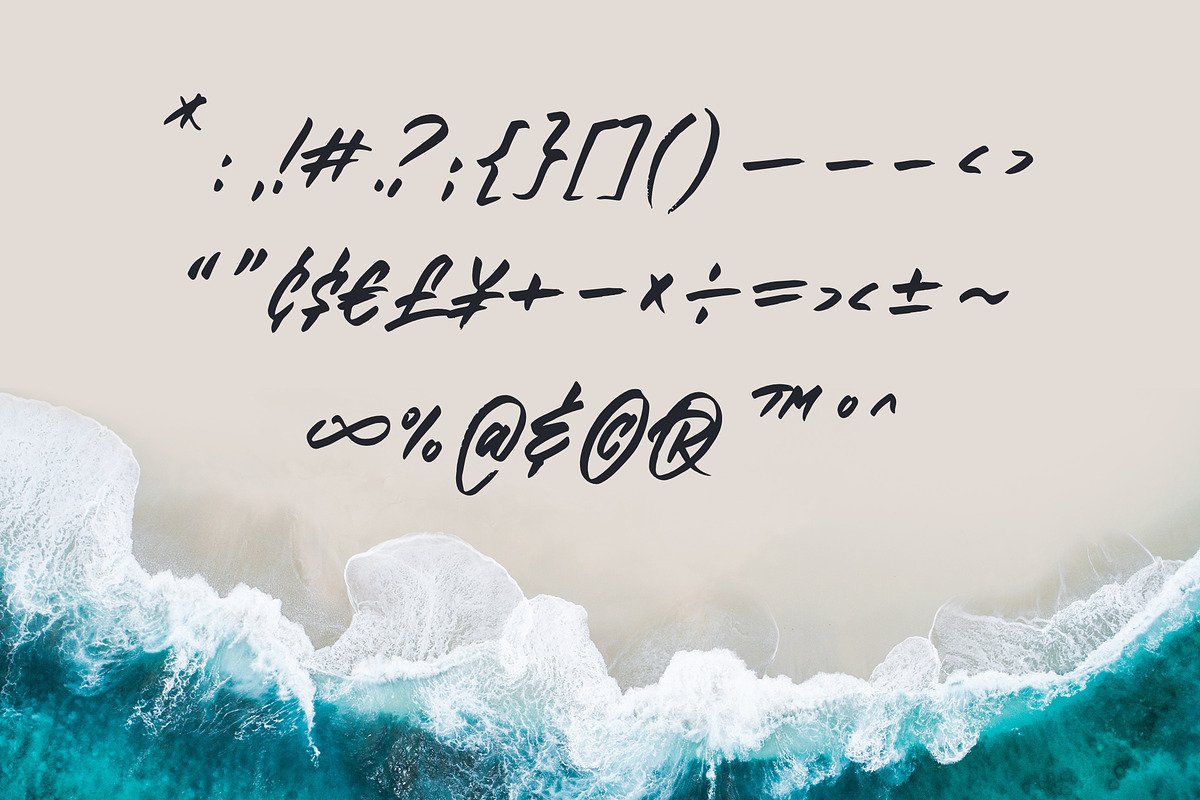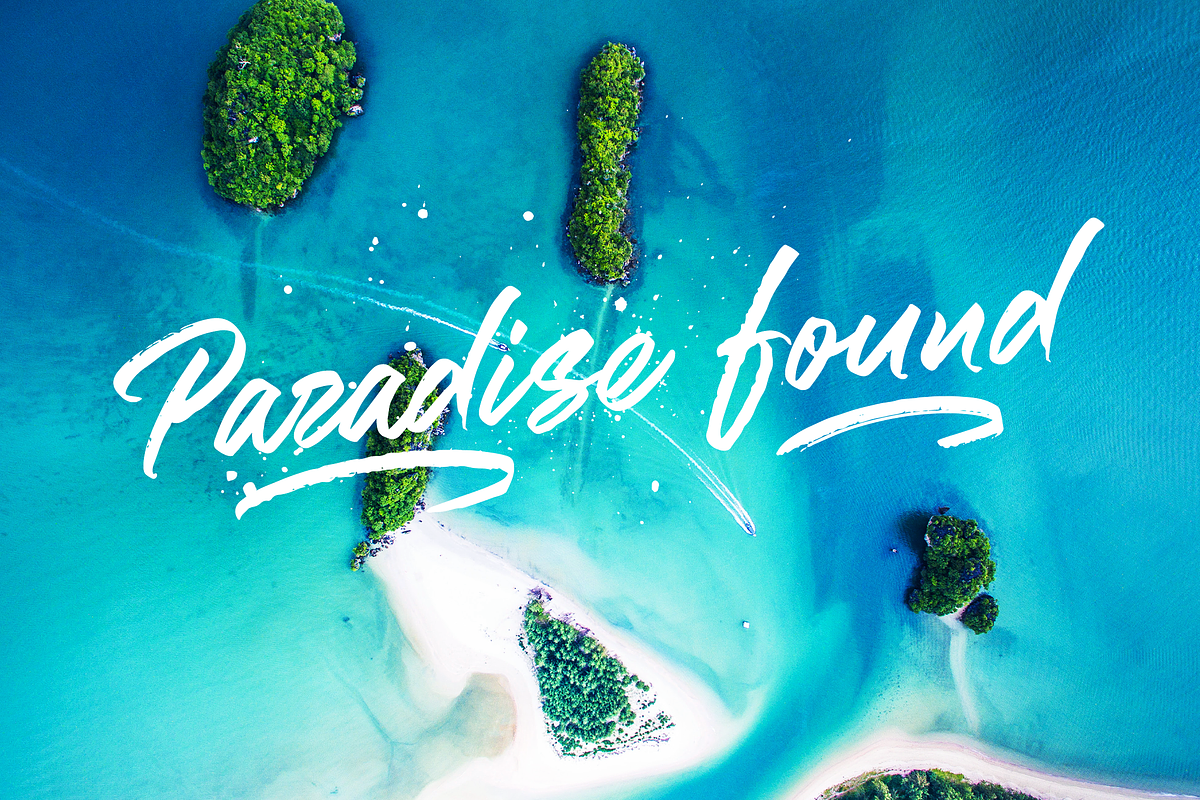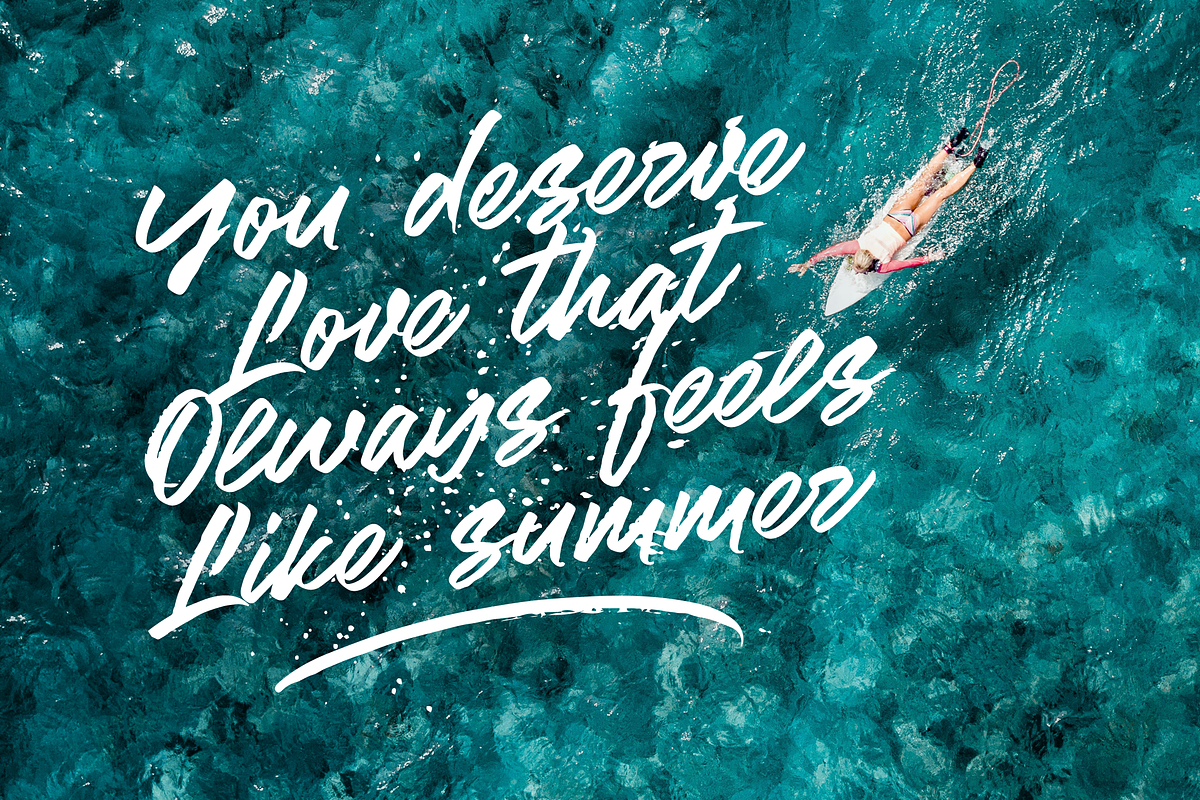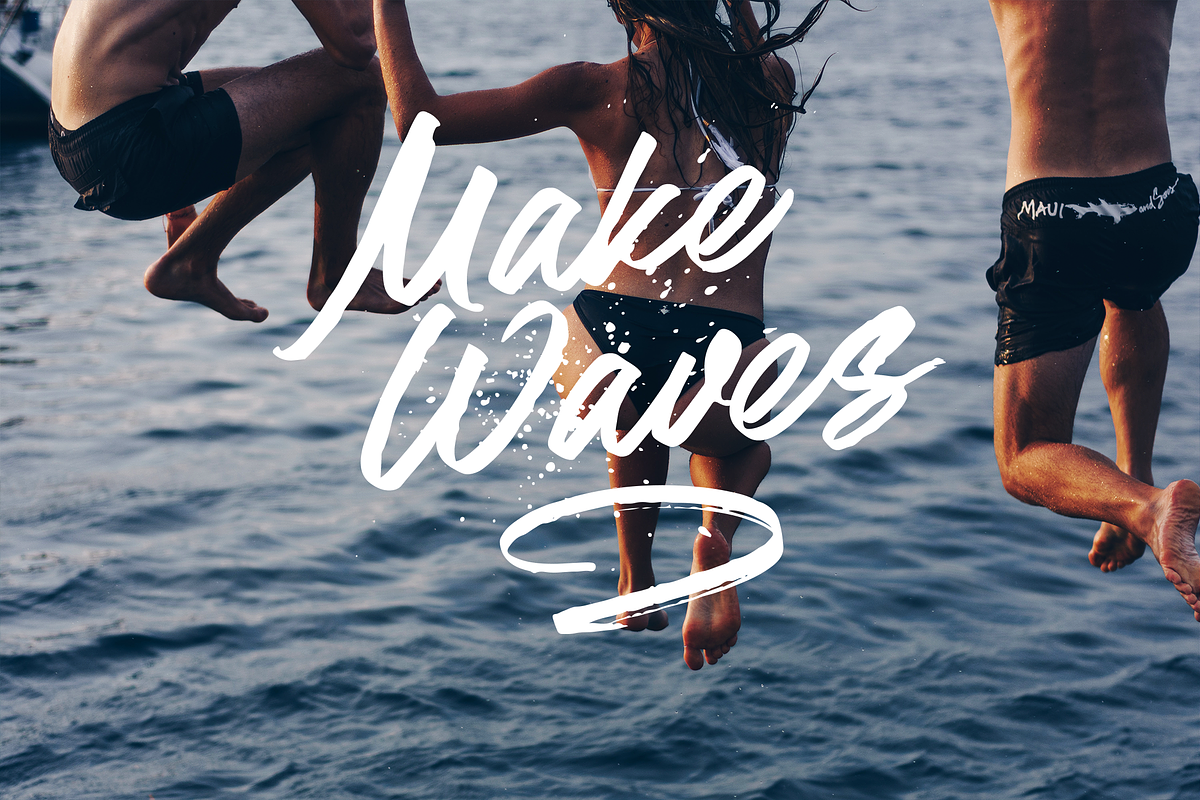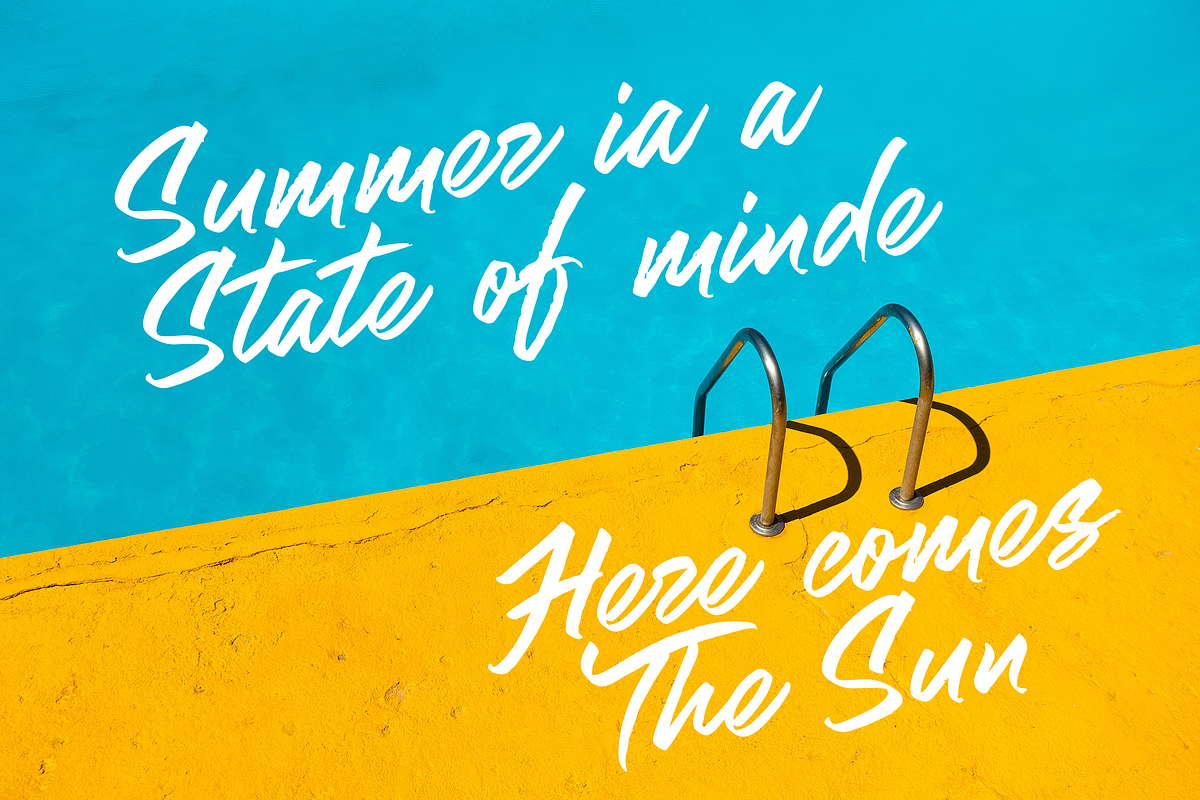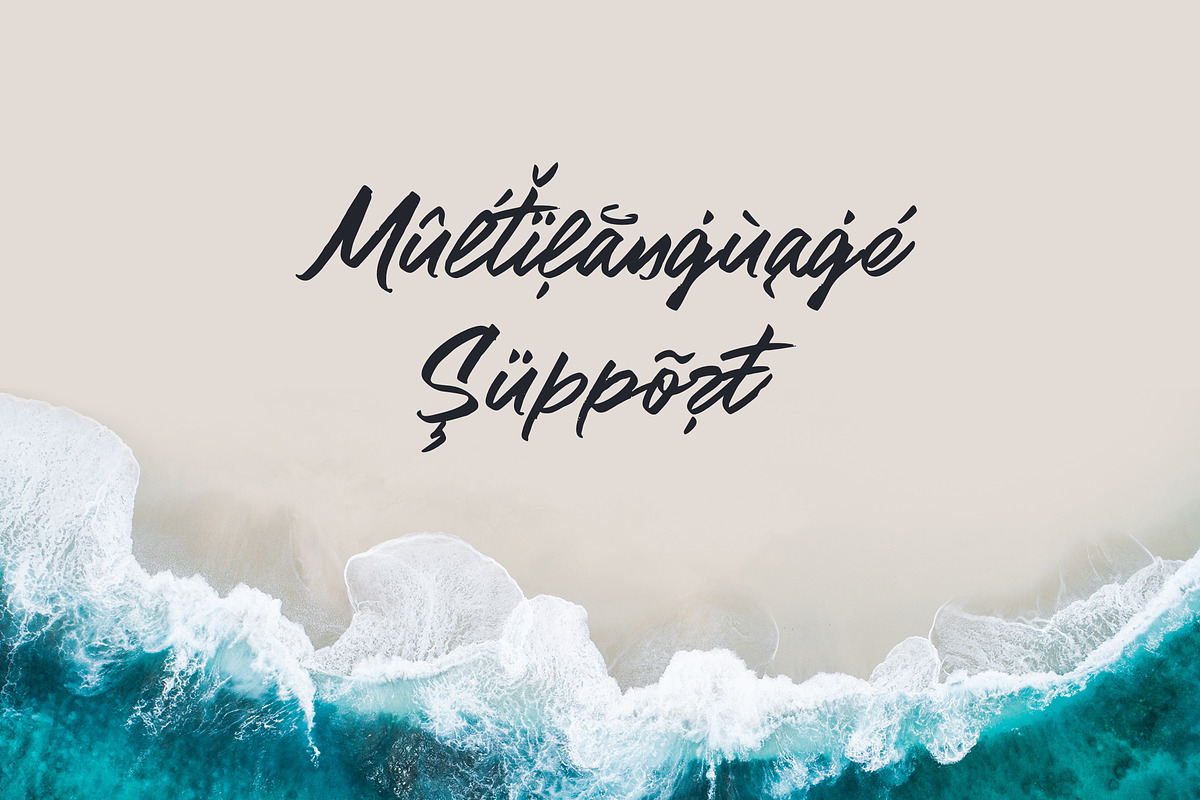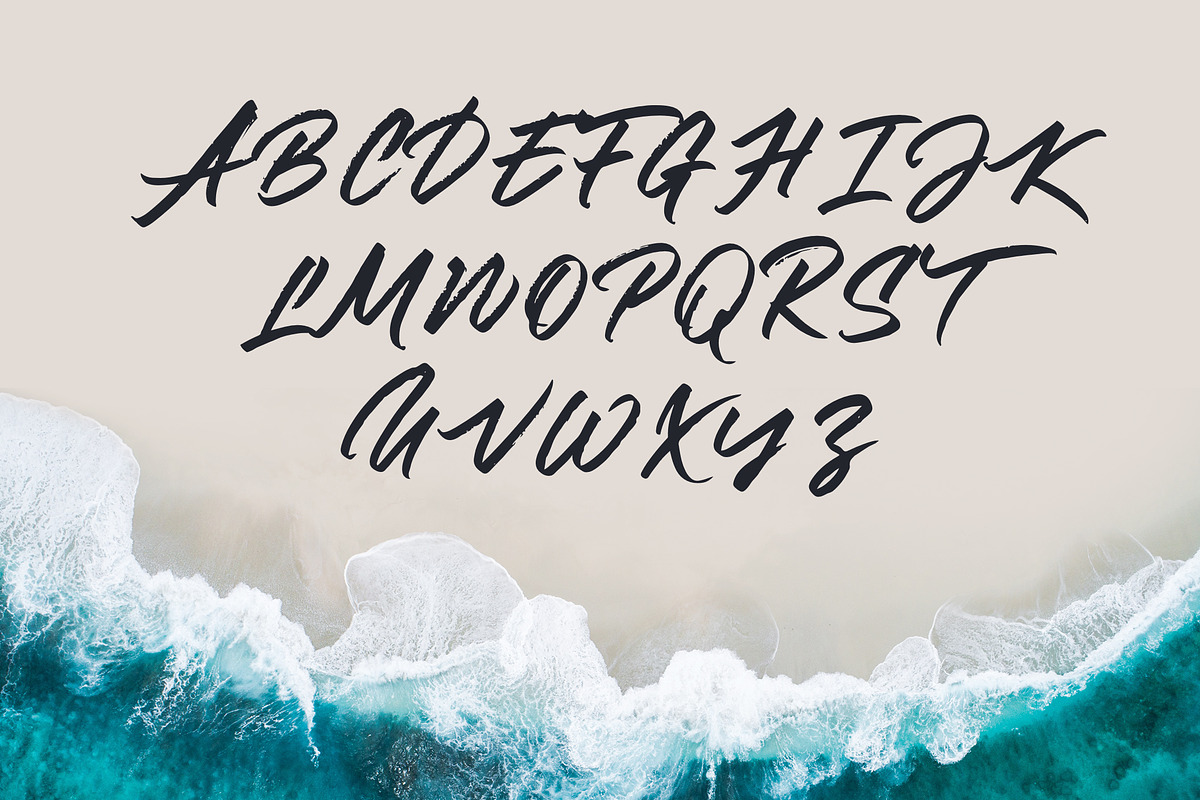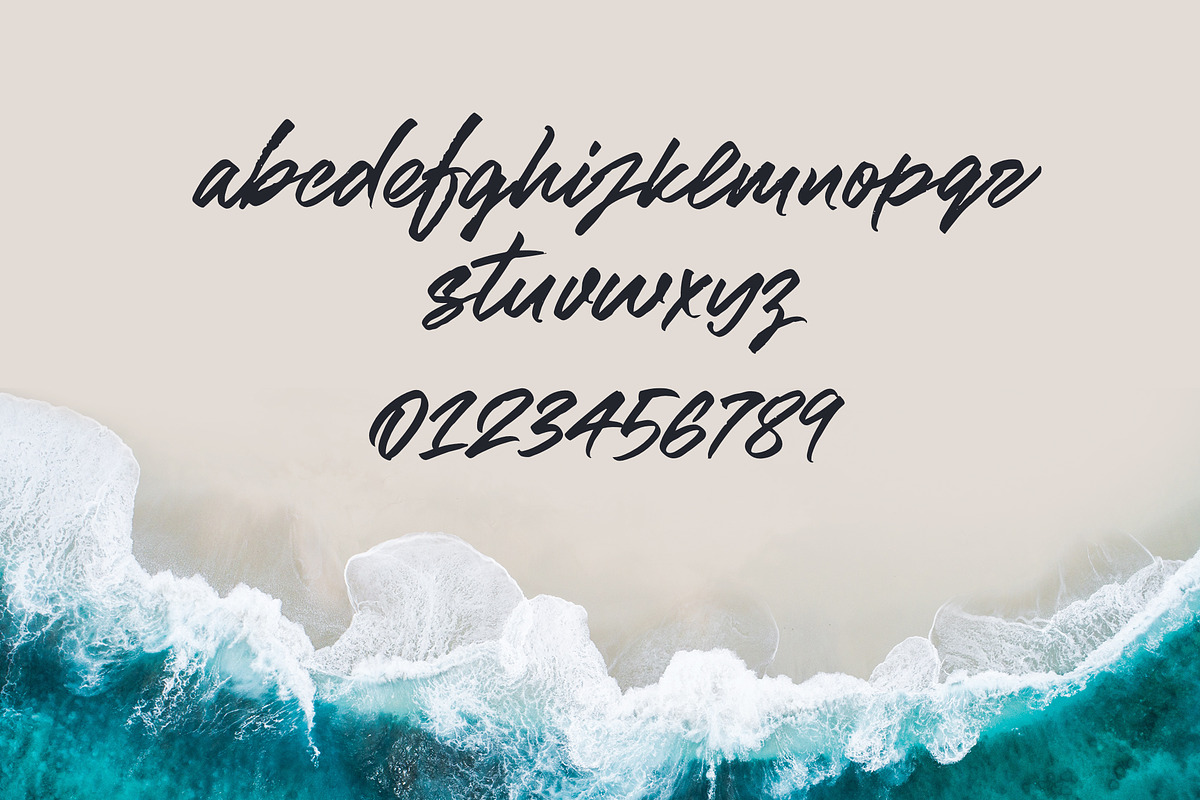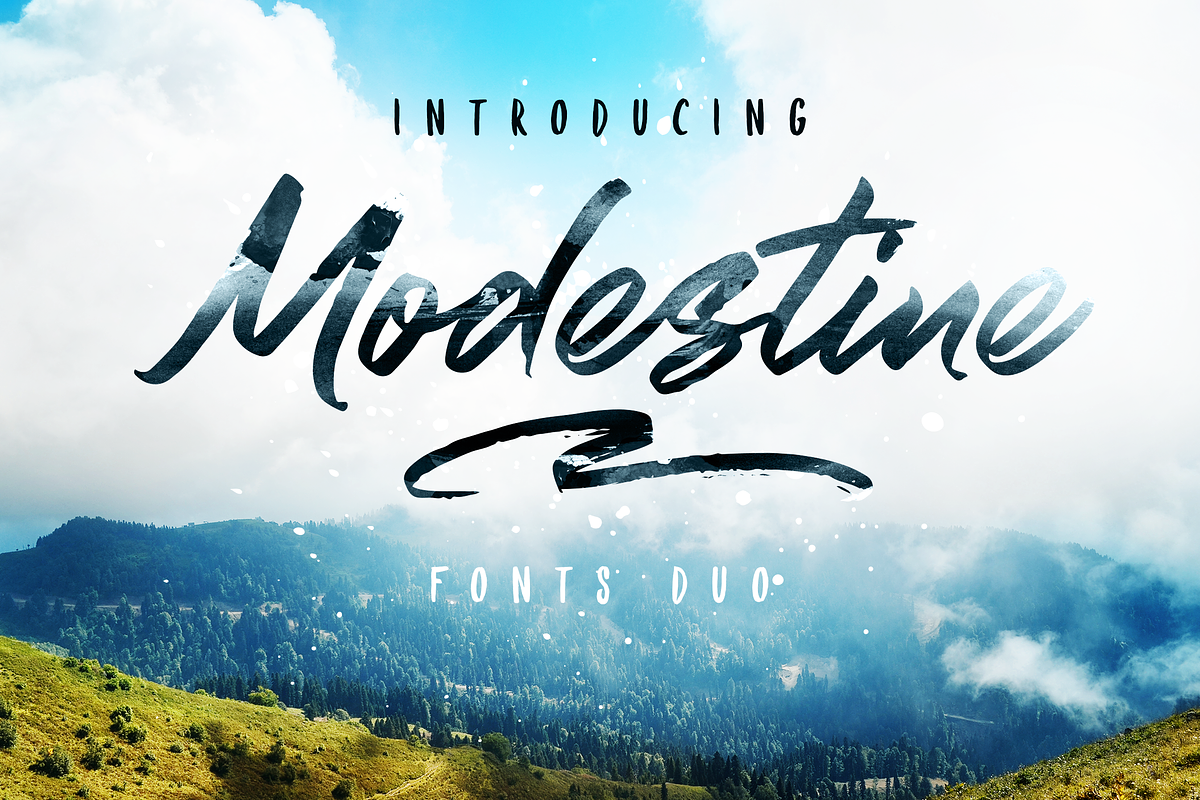
Modestine Script
Modestine comes with a full set of upper and lower case characters - giving you the extra freedom to turn your text into authentic custom-made hand lettering.
Modestine font Includes a large range of glyphs including numerals, punctuation & multilingual support.
- Punctuation & numbers
- Splashes & Splatters
- Uppercase letters
- Multi Language